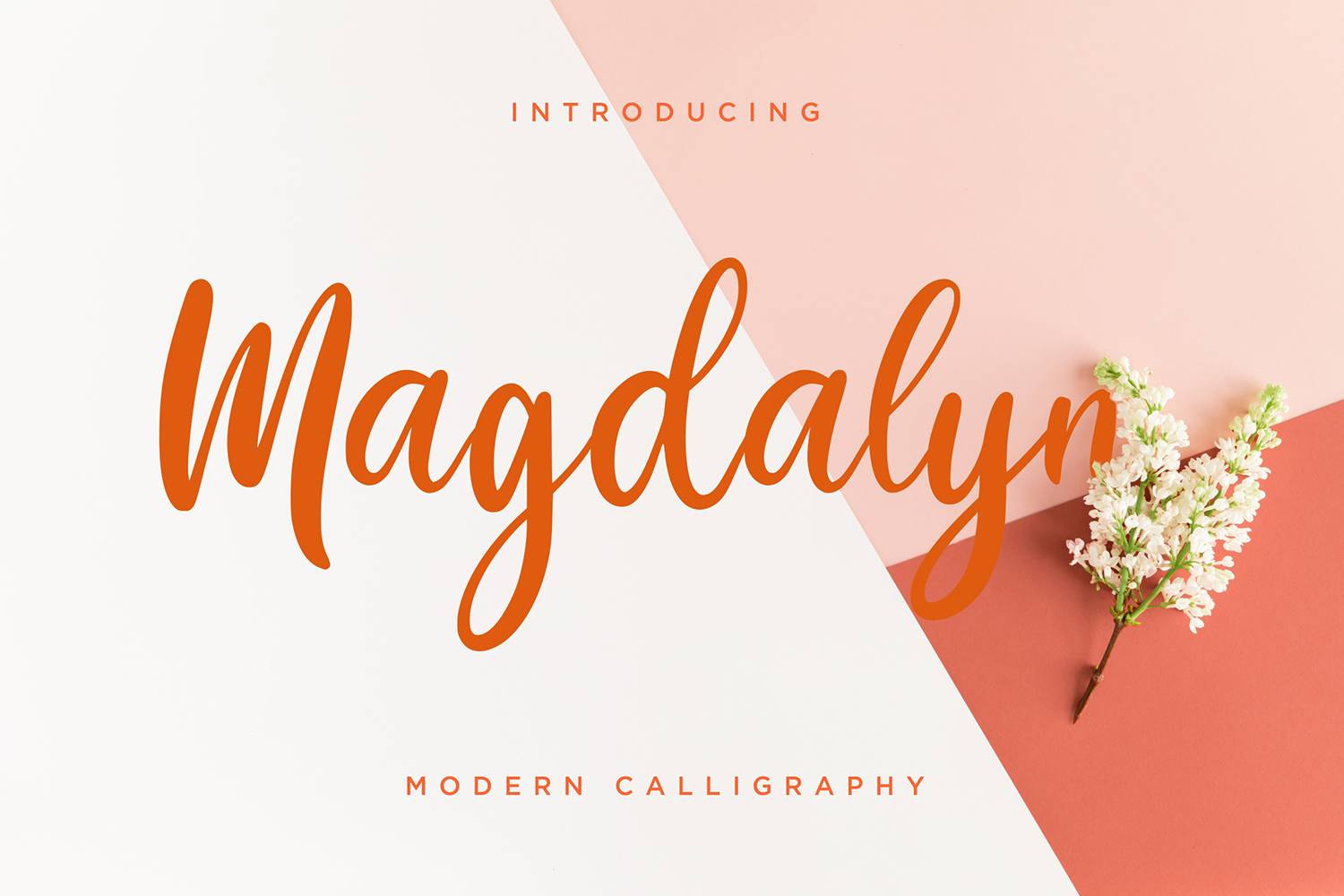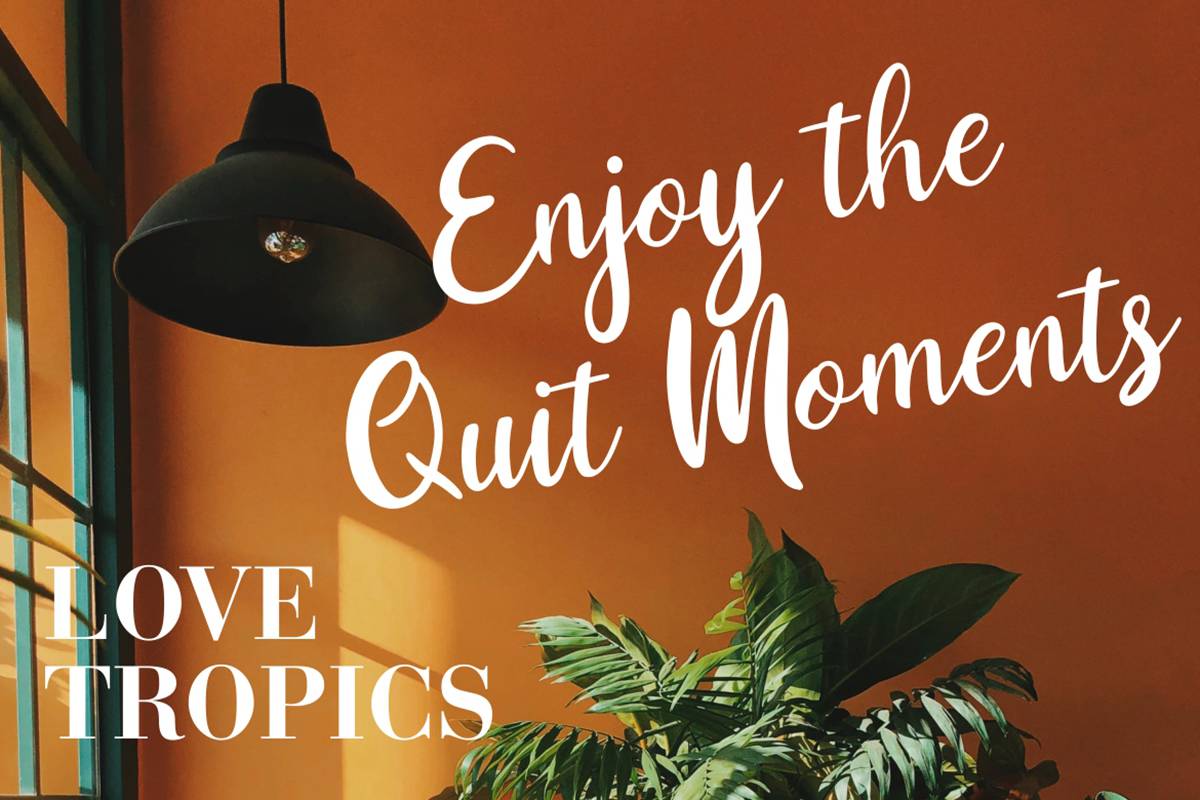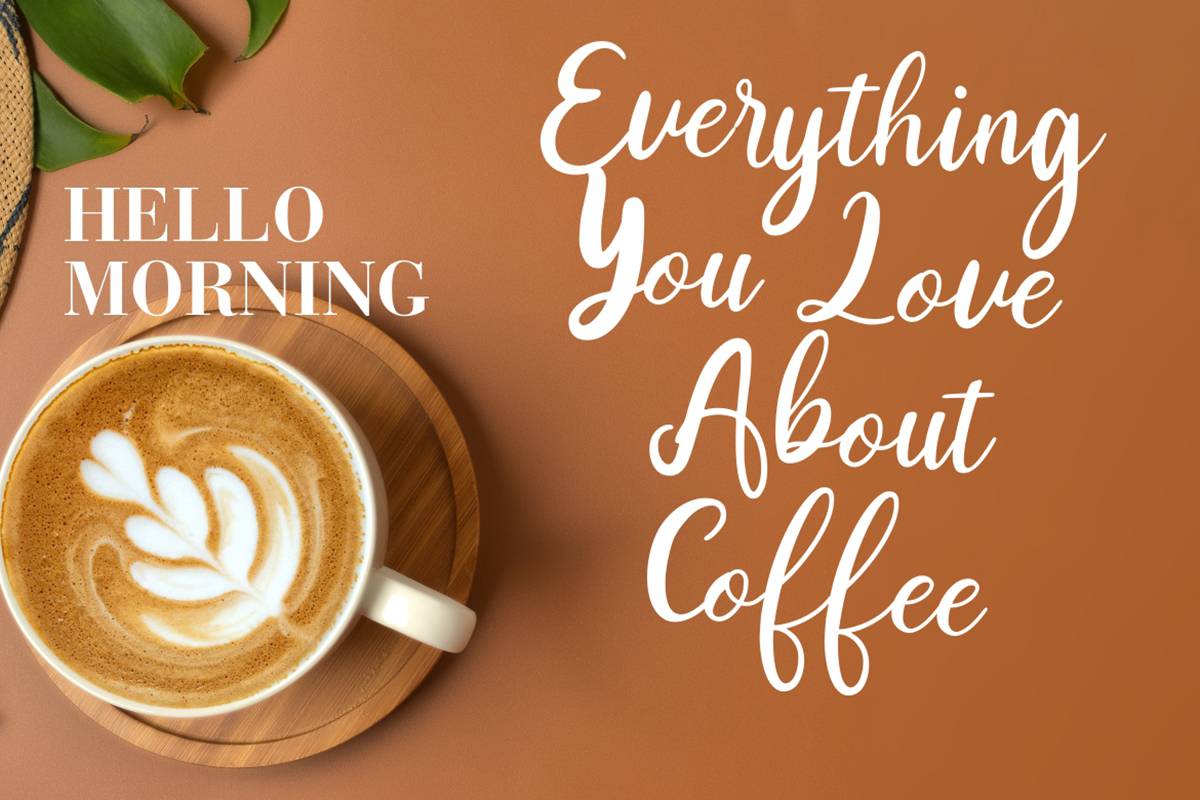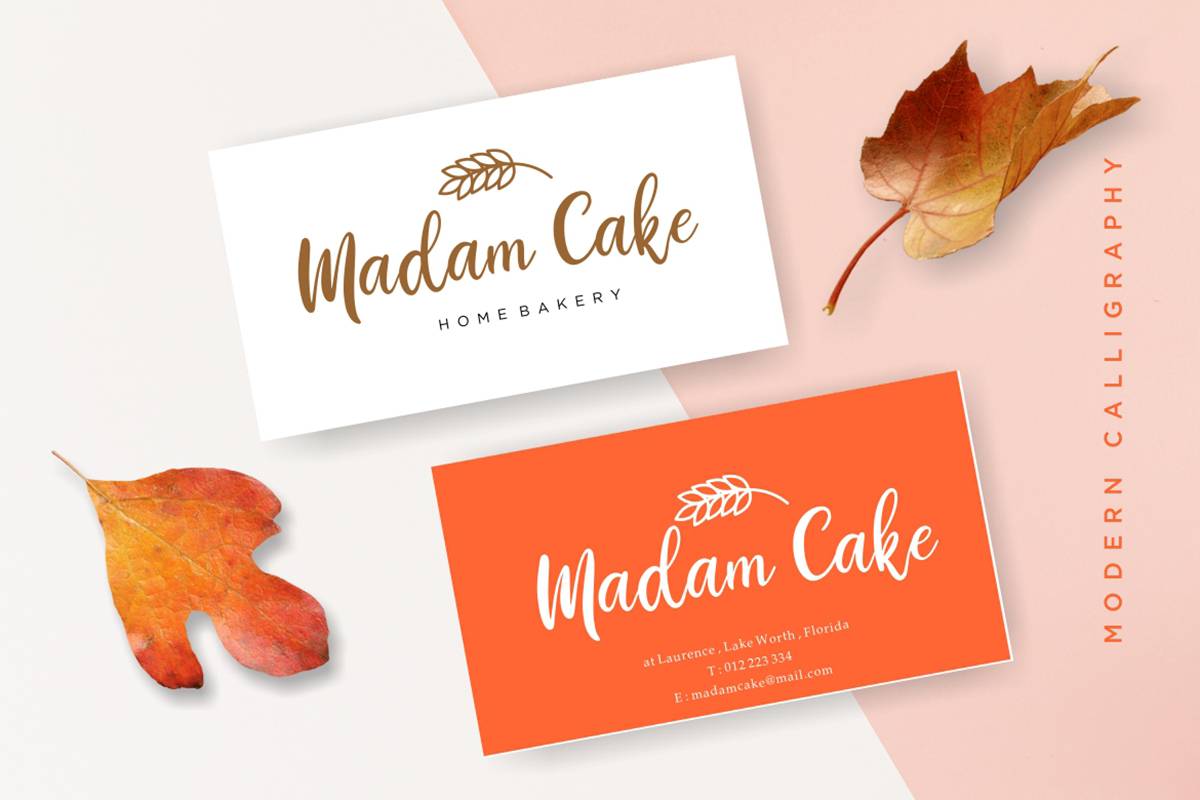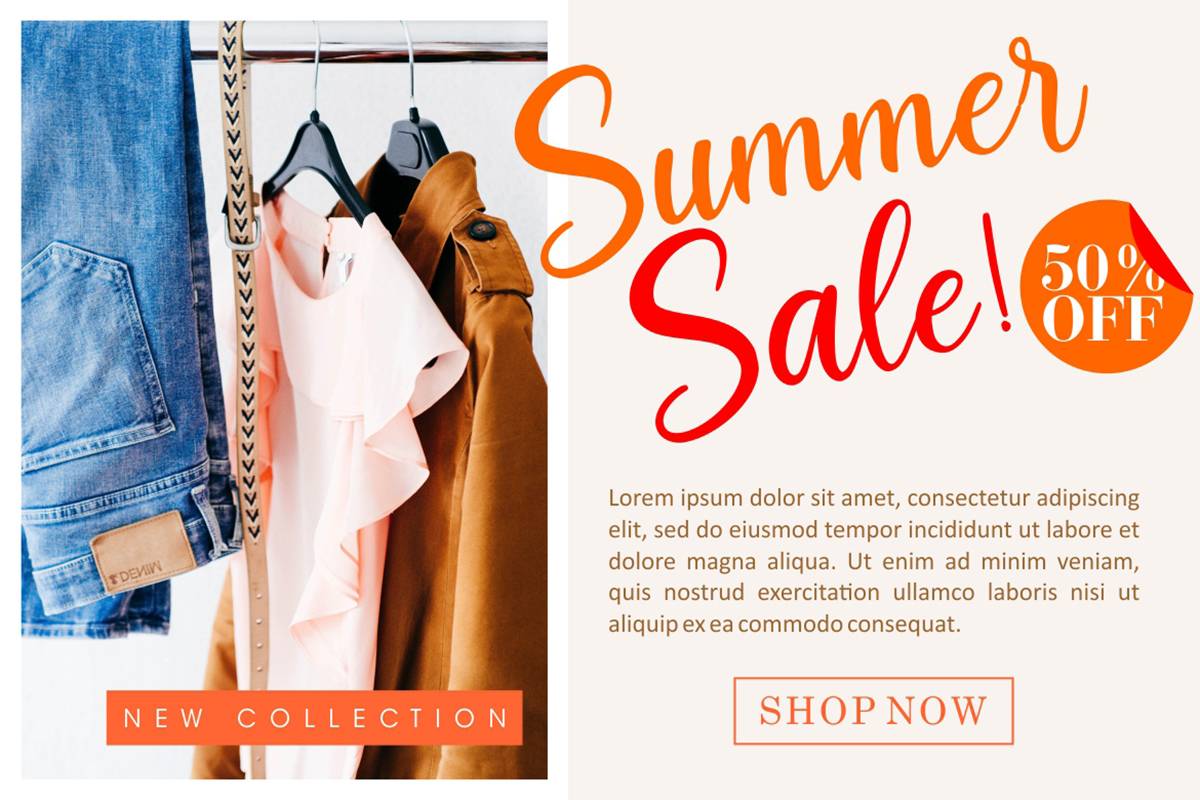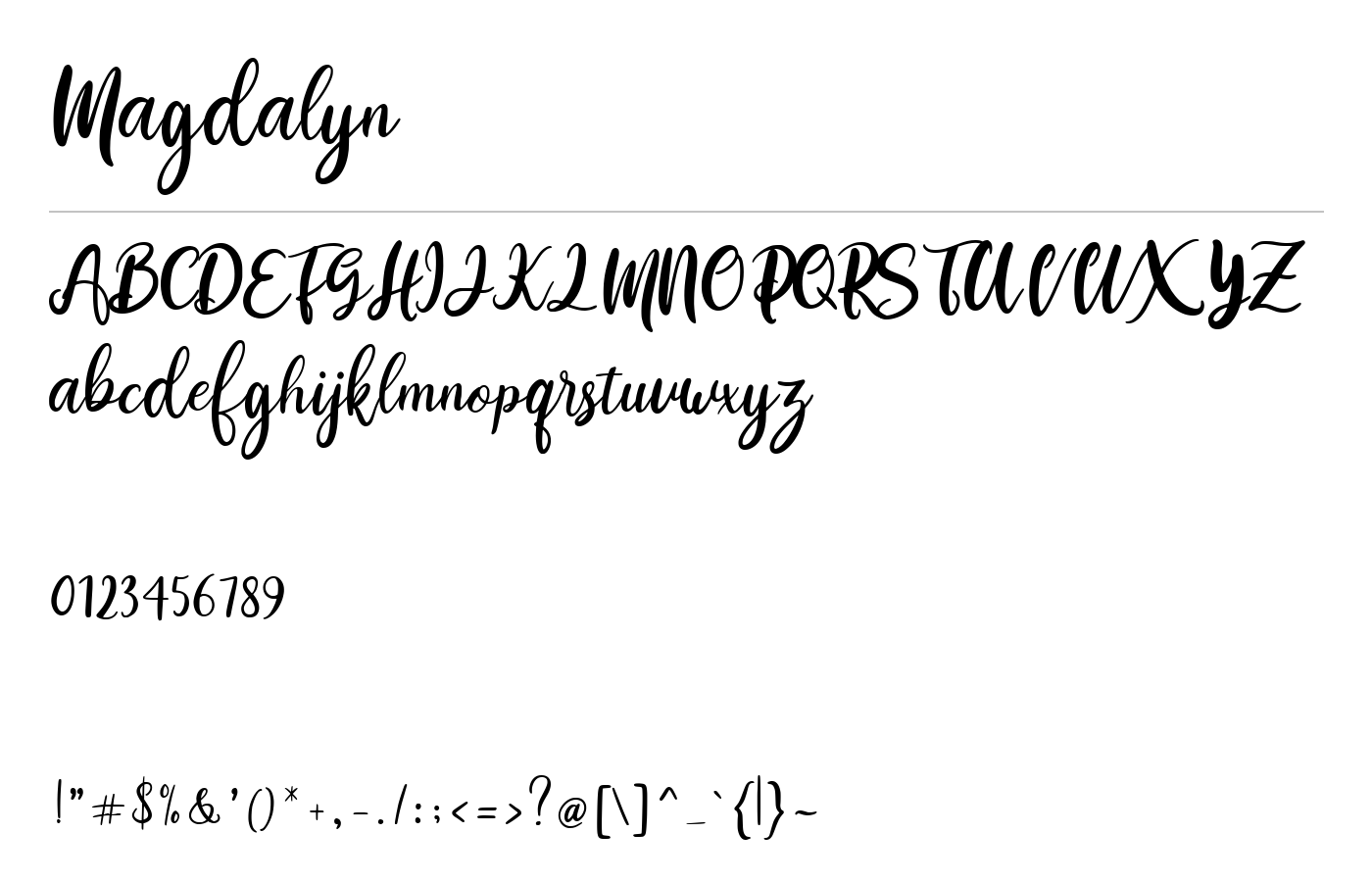
Magdalyn is a stylish script font with smooth, flowing curves and a medium weight that creates an elegant yet approachable feel. Its handwritten style features distinctively rounded letterforms, including unique uppercase characters and a lively lowercase set, making it perfect for branding, invitations, and creative projects that seek a personal, graceful touch. Ideal for headlines, logos, and decorative uses, Magdalyn adds a warm, sophisticated charm to any design.
Magdalyn Font
About Magdalyn Font
| Font family | Magdalyn Font |